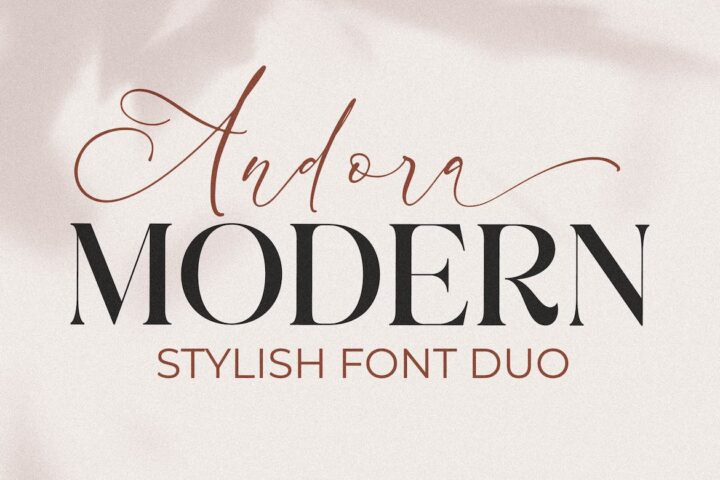
Andora Modern Font Duo
Hi ladies & gentlemen, this is one of our fonts suitable to complement your digital and printed creative products. This font is perfect for posters, social media posts, branding, personal projects, etc.